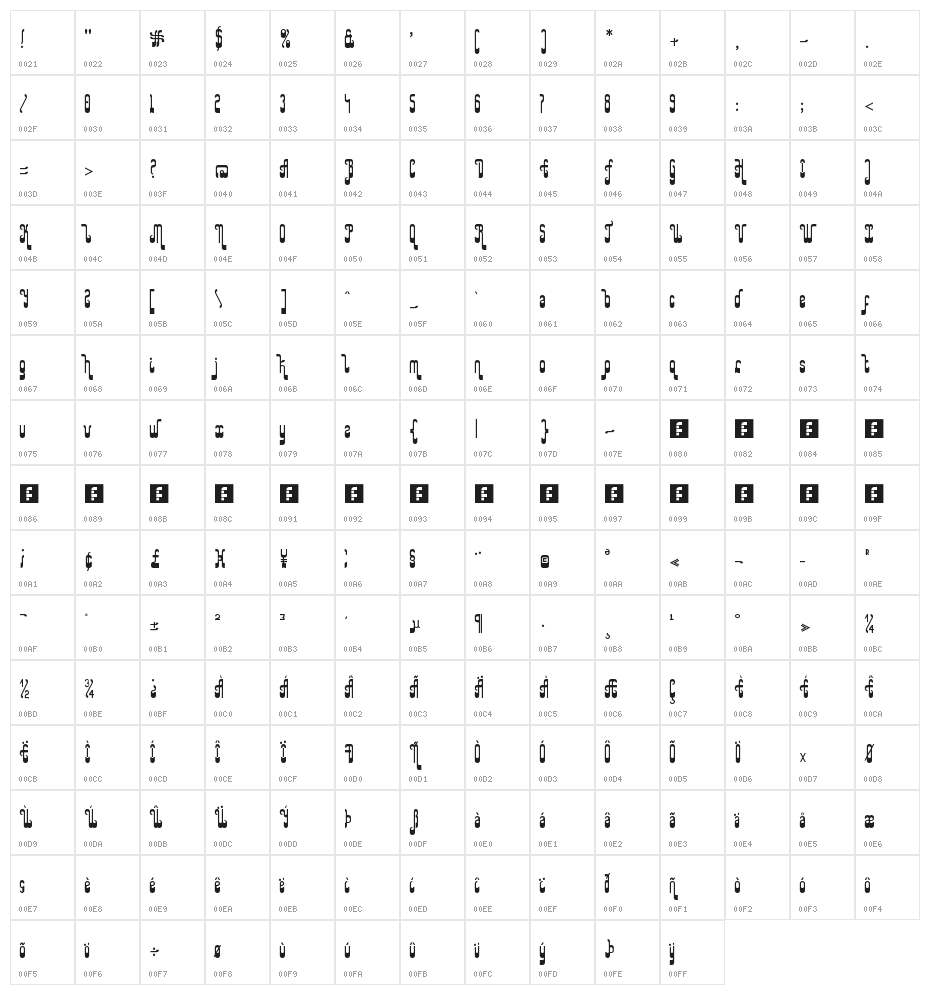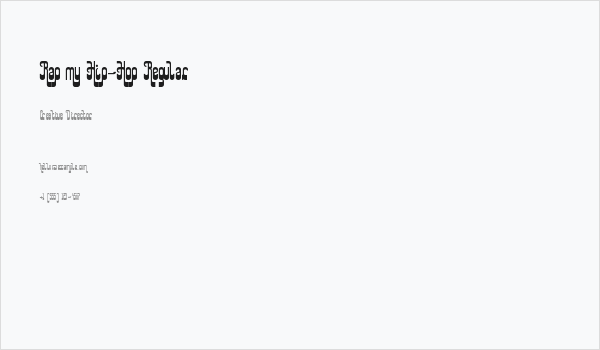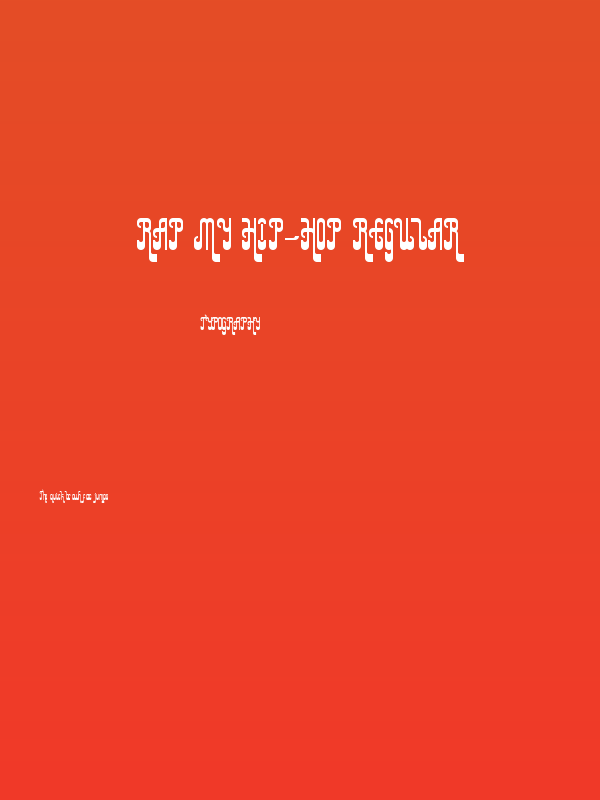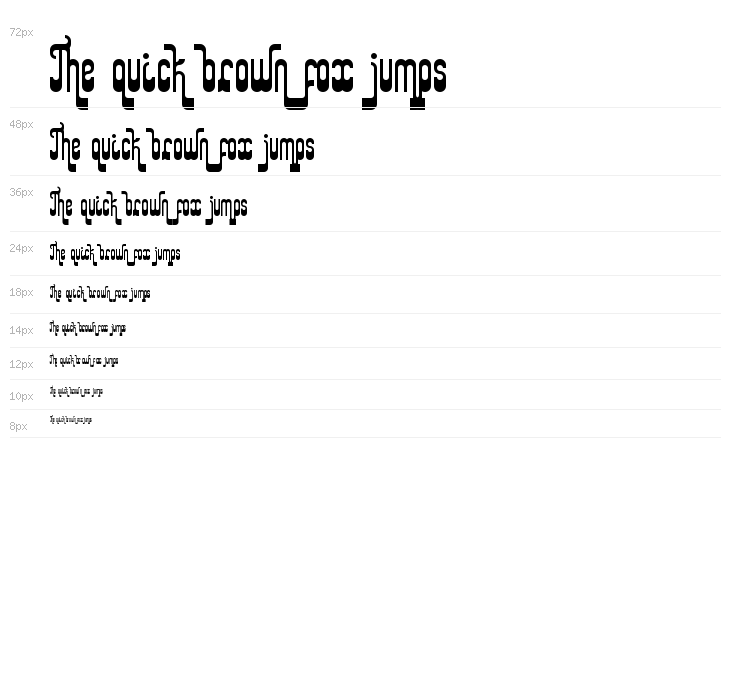
Rap my Hip-Hop Regular Font
Rap my Hip-Hop Regular Description
This font features a bold and playful design with a unique, urban flair. The characters are heavily stylized, incorporating thick strokes and rounded edges that give it a distinct, graffiti-like appearance. The uppercase and lowercase letters maintain a consistent style, with exaggerated curves and loops that add to its dynamic look. Numbers and special characters are equally bold, ensuring a cohesive aesthetic across all elements. The font's overall design is reminiscent of street art, making it ideal for projects that require a modern and edgy touch.